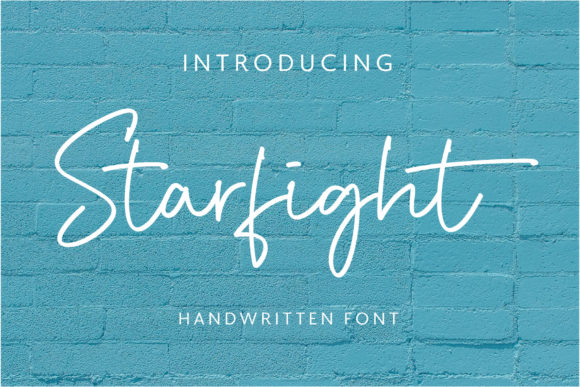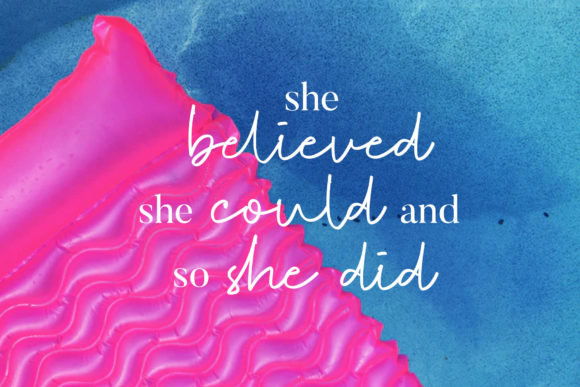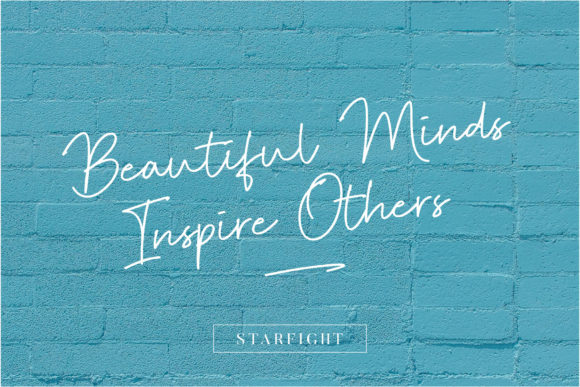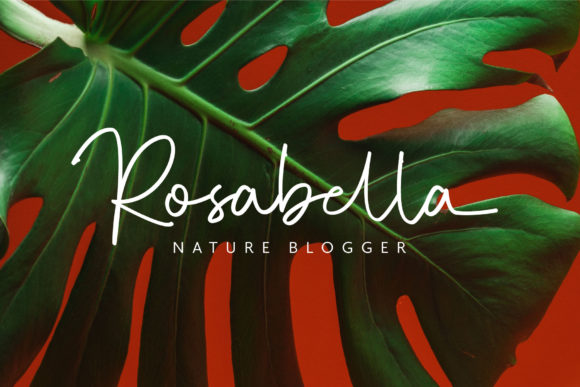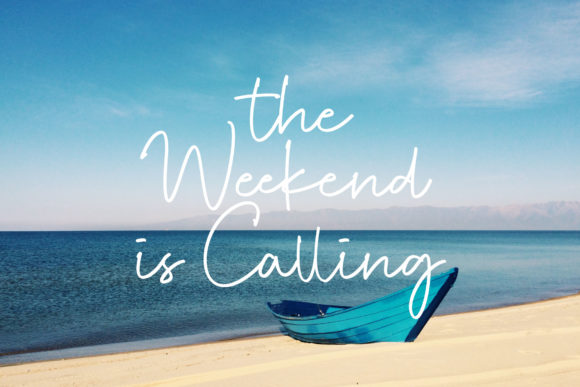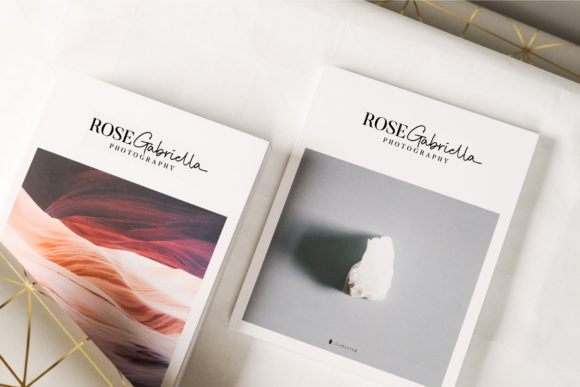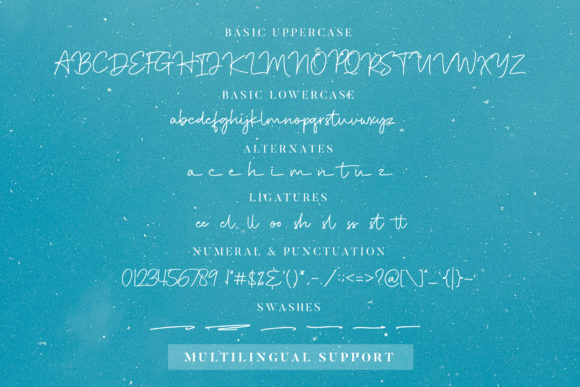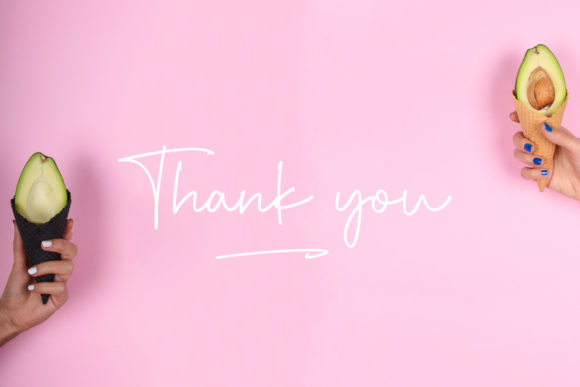
Starfight Font
About Starfight Font
Starfight is a modern and fresh script font. Its handwritten style will bring an elegant, natural, and stylish look to your designs!